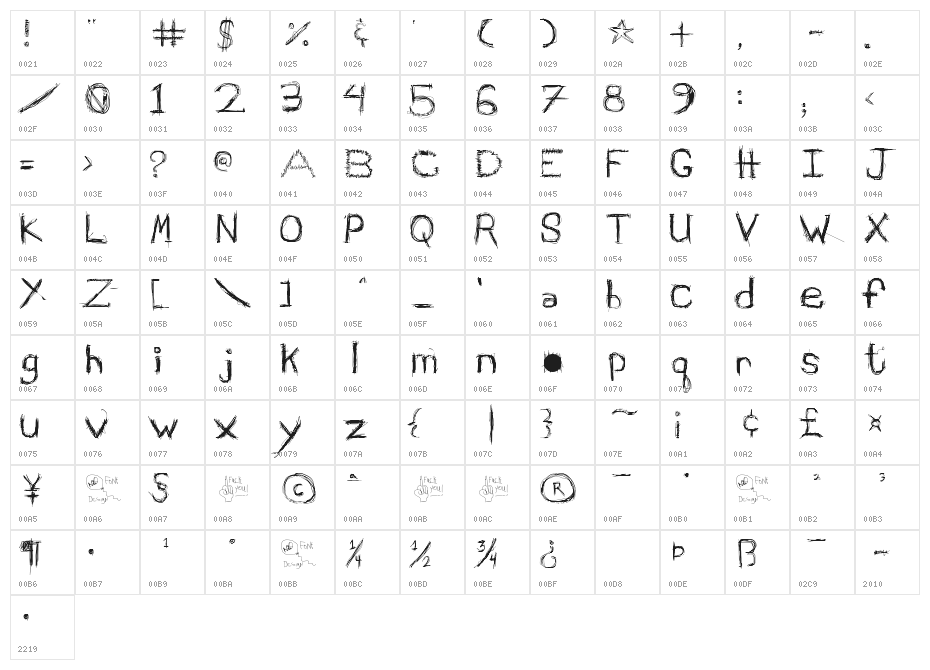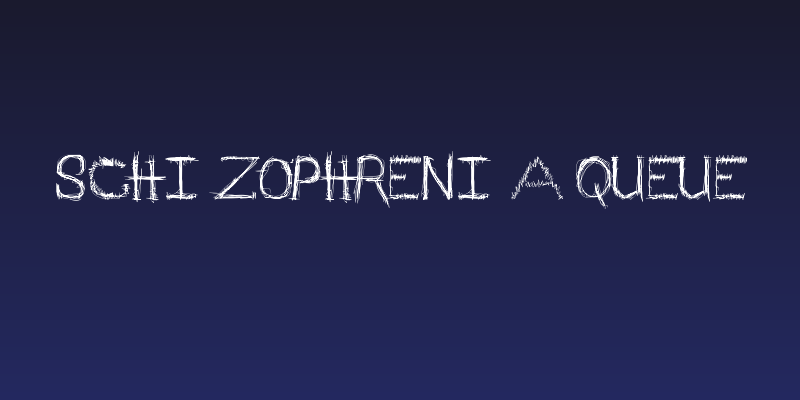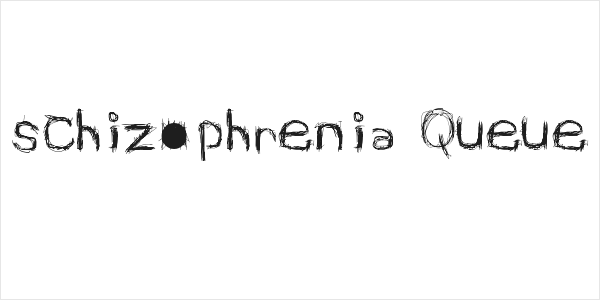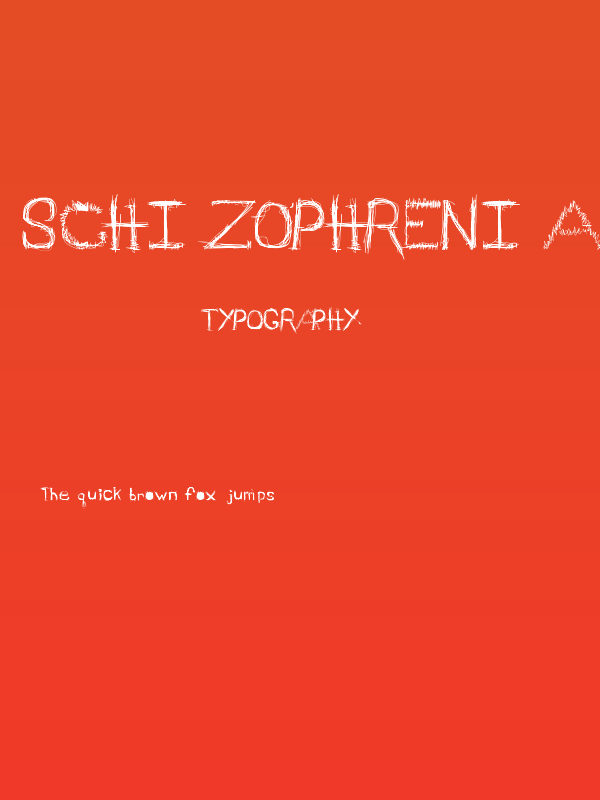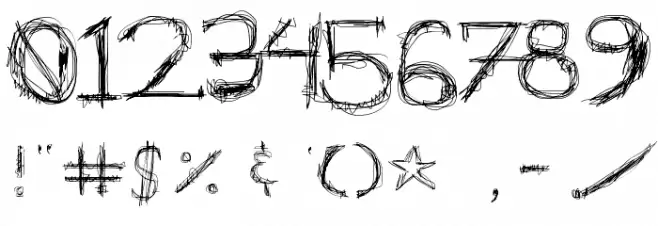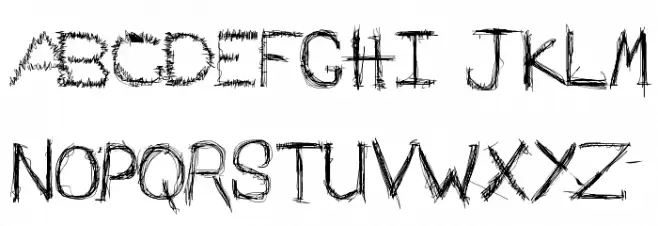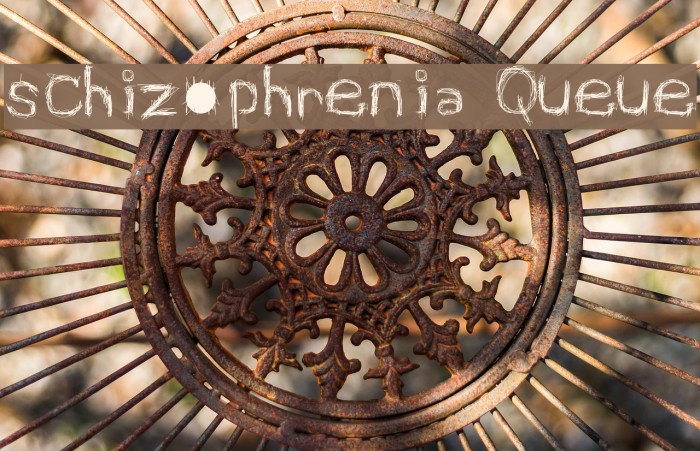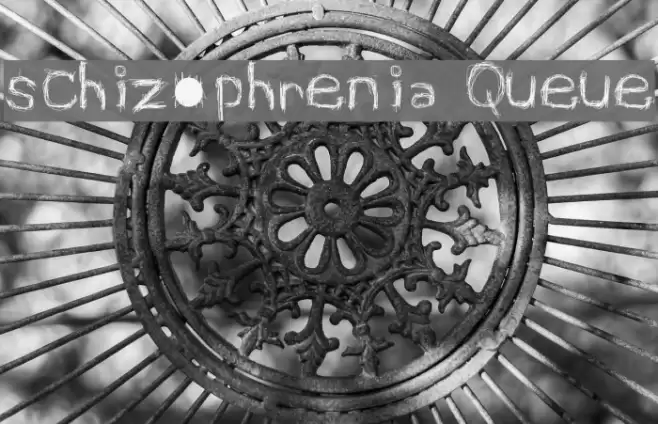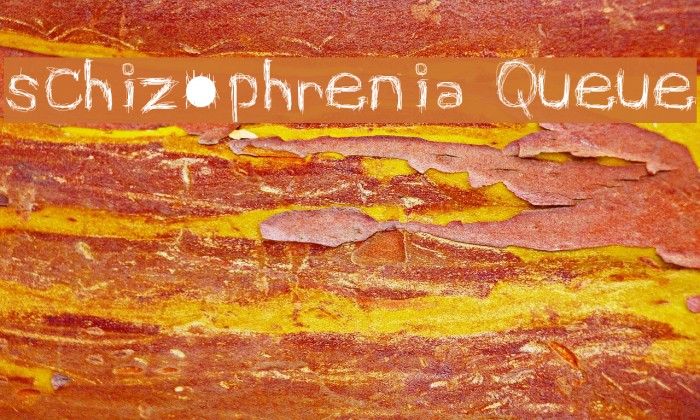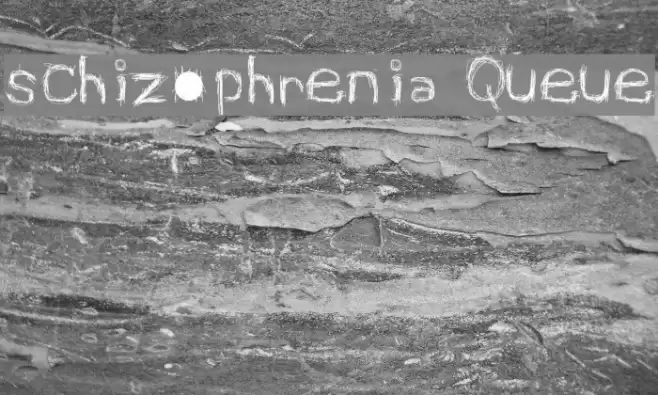
schizophrenia Queue Font
| Vorgeschlagene Projekte | Ideal for horror-themed designs, album covers, edgy posters, or any project requiring a raw, unsettling aesthetic. |